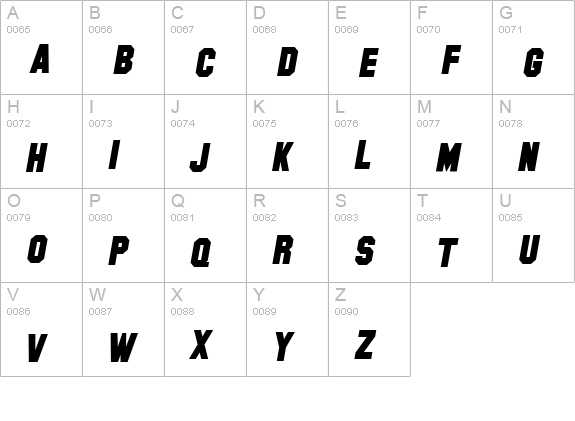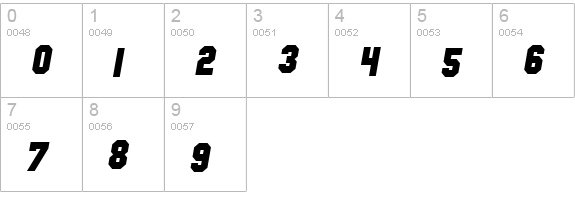
SF Hollywood Hills Bold Italic Font Details
SF Hollywood Hills Bold Italic is a strong, high-contrast, italic variant in the SF typeface family \xE2\x80\x94 well suited to headlines, attention-grabbing titles, and strong calls-to-action.
Introducing SF Hollywood Hills Bold Italic font, a captivating and dynamic typeface that exudes the essence of Hollywood glamour and urban sophistication. This font beautifully combines boldness and elegance, making it the perfect choice for projects that demand attention and style. Designed with meticulous attention to detail, SF Hollywood Hills Bold Italic font features sleek and sharp letterforms that effortlessly blend modernity with a touch of classic Hollywood charm. Its bold weight adds a striking impact to any design, while the italic style adds a sense of movement and energy. Whether you're creating eye-catching headlines, stylish posters, or captivating logos, SF Hollywood Hills Bold Italic font is sure to make a lasting impression. Its versatility allows it to effortlessly adapt to various design themes, from high-fashion editorials to contemporary movie titles. One of the most exciting aspects of SF Hollywood Hills Bold Italic font is that it is freely available to download at FontsMarket.com. This means that you can enhance your creative projects without any limitations or costs. With just a few clicks, you can access this stunning font and bring your designs to life. Embrace the glitz and glamour of Hollywood with SF Hollywood Hills Bold Italic font. Its boldness and elegance will elevate your designs to new heights, leaving a lasting impact on your audience. So go ahead, unleash your creativity and download SF Hollywood Hills Bold Italic font today at FontsMarket.com.